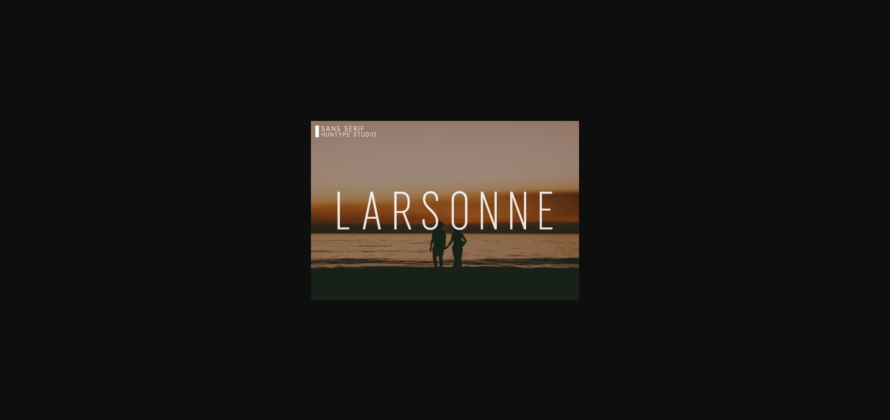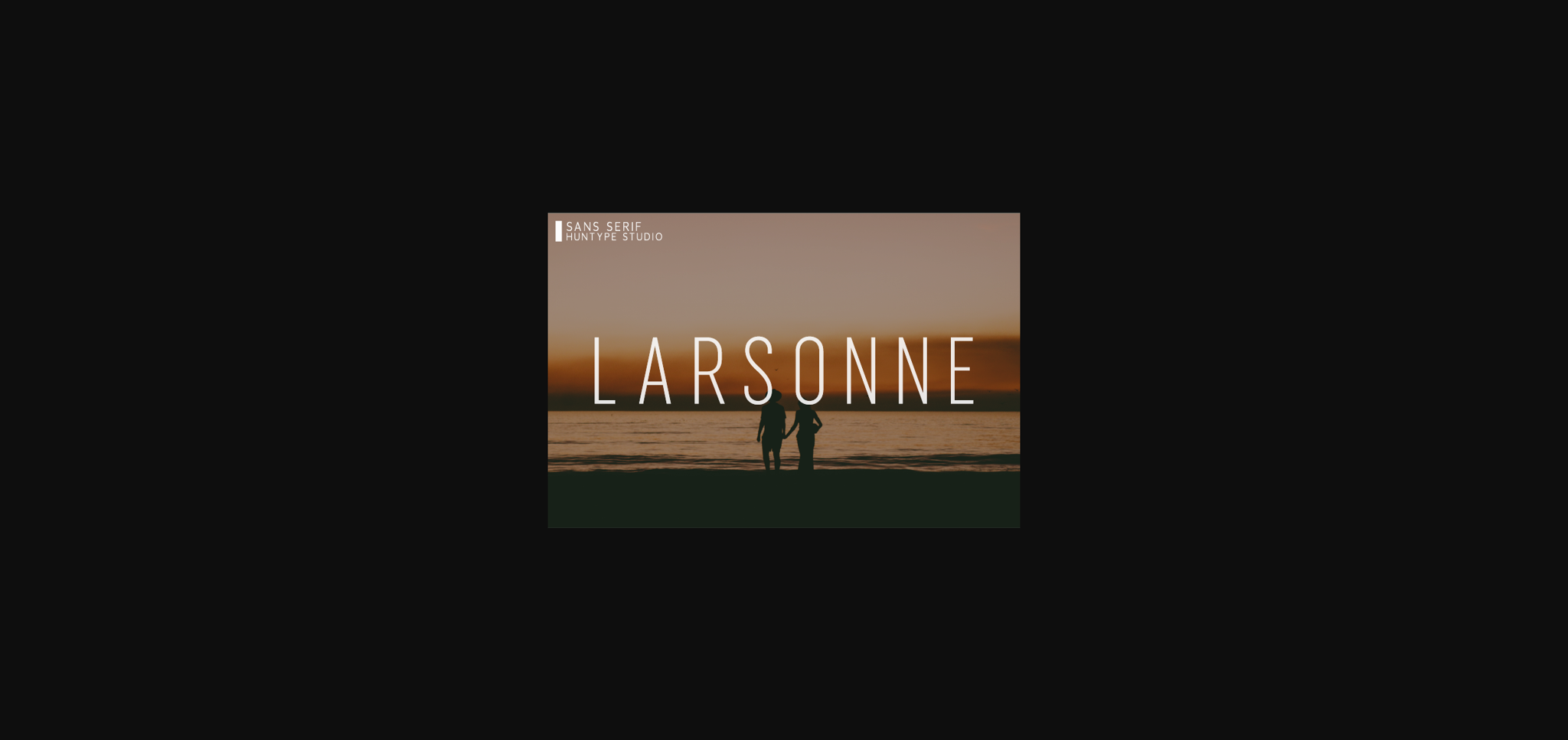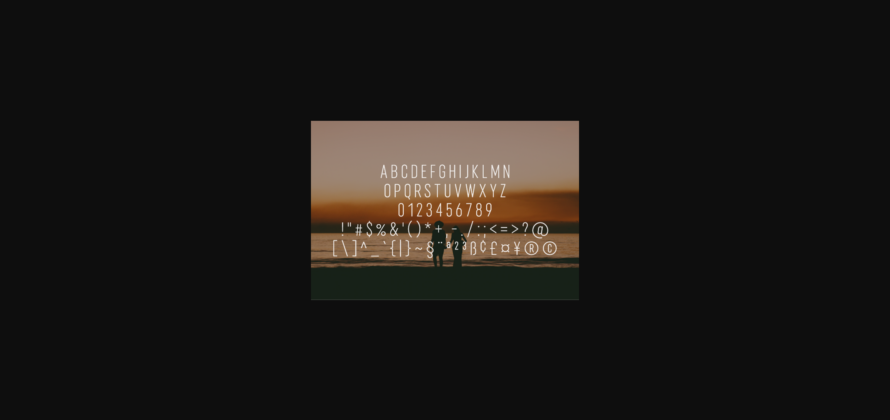
About Larsonne Font
Larsonne is a simple and casual sans serif font with an undeniably clean feel. With its neat and beautiful arrangement of letters, this typeface will look outstanding in both formal and non-formal designs.